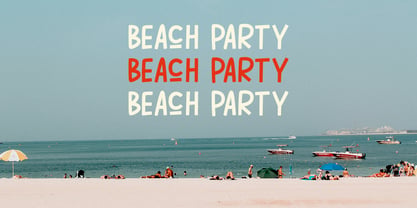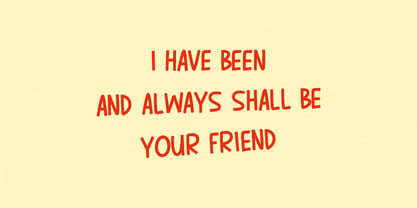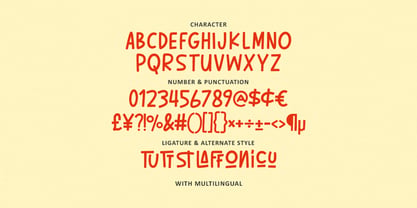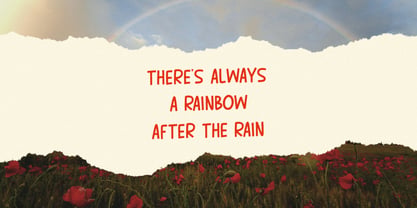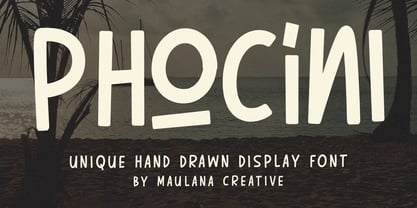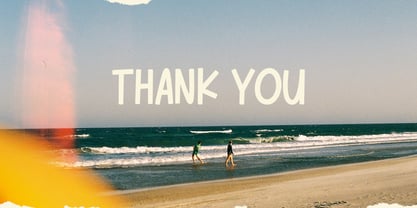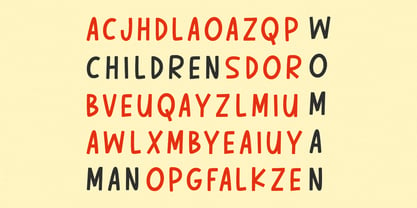
MC Phocini
by Maulana Creative
The MC Phocini Font Family was designed by Gilang Maulana and published by Maulana Creative. MC Phocini contains 1 styles. More about this family
Phocini is a unique hand-drawn display font with a playful and casual style that brings warmth and personality to any design. With its quirky strokes and natural handmade feel, Phocini is perfect for branding, quotes, children’s designs, beach-themed projects, and creative marketing materials. This all-caps font comes with ligatures, alternate styles, numbers, punctuation, and multilingual support, making it a versatile choice for both personal and professional projects. Whether you’re designing for summer vibes, inspirational messages, or eye-catching headlines, Phocini adds charm and originality to your work.
Designers: Gilang Maulana
Foundry: Maulana Creative